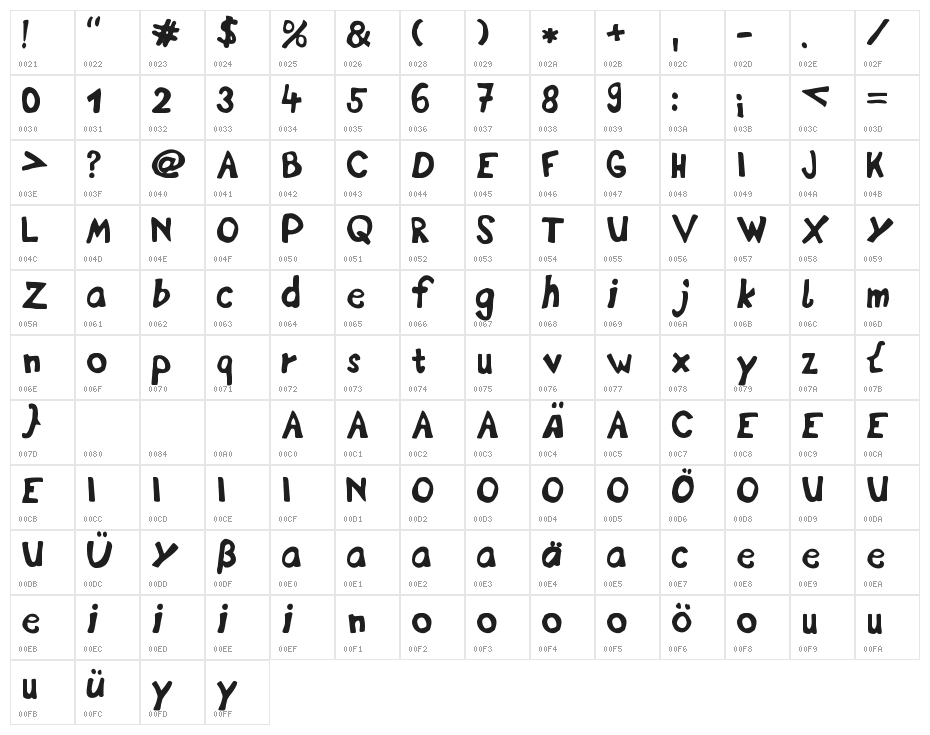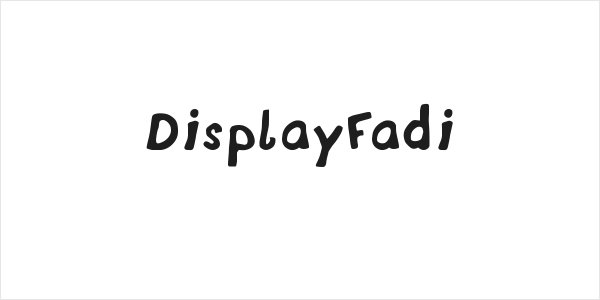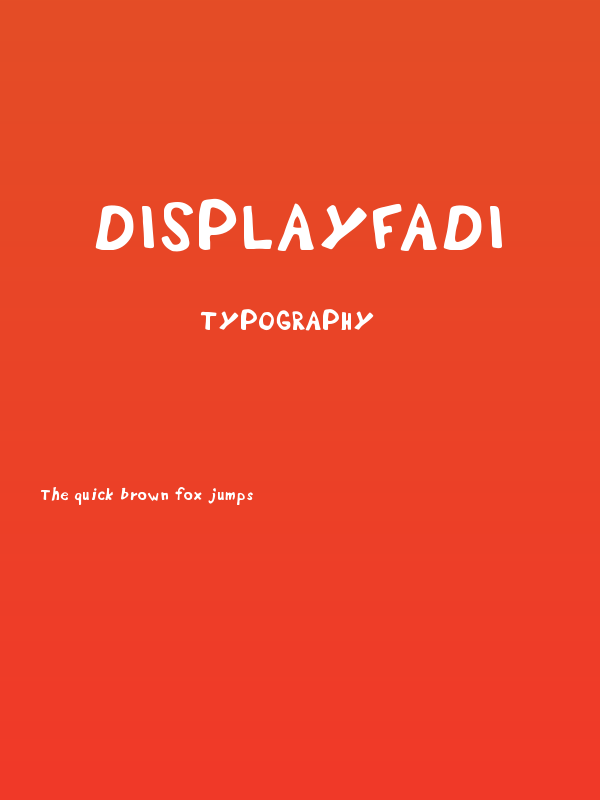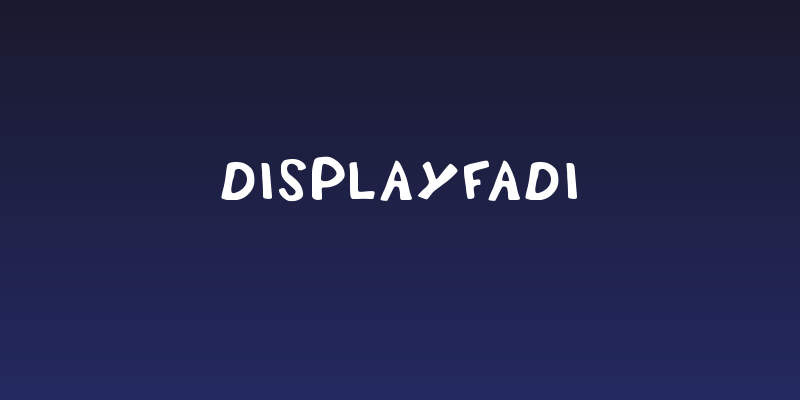
DisplayFadi Font
DisplayFadi Description
This playful and bold font features a hand-drawn, whimsical style with irregular, organic shapes that give it a lively and informal appearance. The characters are slightly uneven, adding to its charm and making it ideal for creative and fun projects. The uppercase and lowercase letters maintain a consistent thickness, while the numbers and special characters share the same playful aesthetic. The font's unique style makes it stand out, perfect for designs that require a touch of personality and creativity.
| Use Case | Logos, Headlines, Posters |
| Proposed Projects | Ideal for children's books, playful branding, greeting cards, and creative posters. |